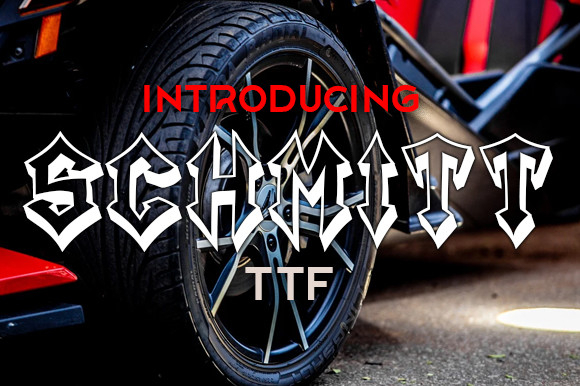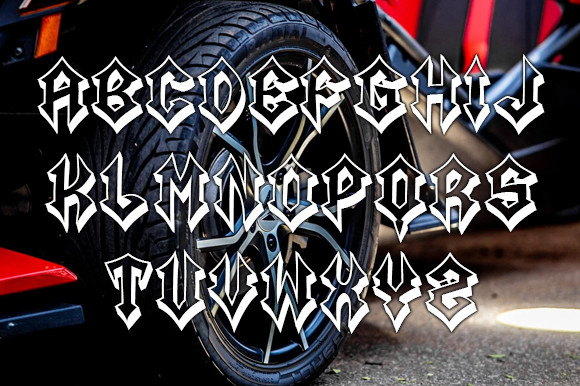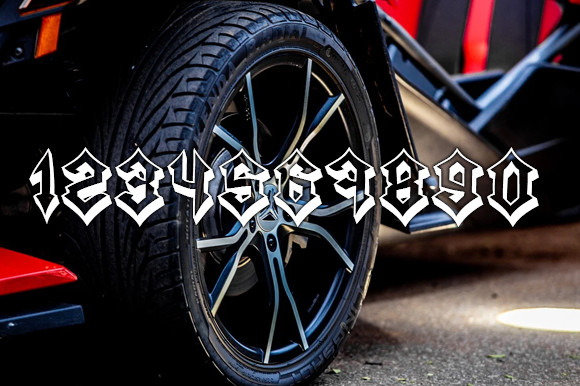
Schmitt Font
About Schmitt Font
Introducing Schmitt Font Blackletter, a bold and captivating typeface that embodies the rich heritage of traditional Blackletter typography. With its intricate and ornate letterforms, this font evokes a sense of history and craftsmanship.
Schmitt Font Blackletter is perfect for creating a dramatic and timeless impact in branding, logo design, or any project that calls for a touch of classic elegance and distinction. Prepare to make a statement with the striking beauty of Schmitt Font Blackletter.